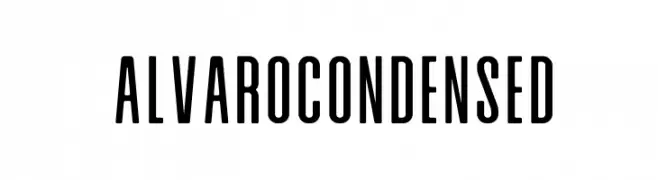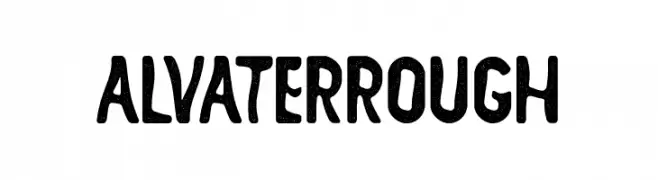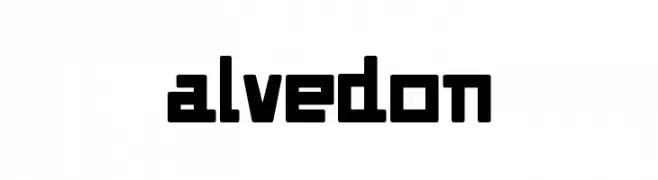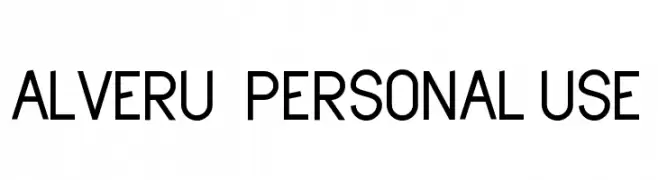
An elegant and intricate script font with flowing, interconnected letters and elaborate swashes.
A dynamic and flowing script font with a handwritten appearance.
A bold, energetic script font with flowing strokes and a modern flair.
A lively script font with elegant curves and smooth connections.
A playful and elegant script font with a handwritten style.
A bold, playful font with rounded edges and a modern, energetic style.
A bold, decorative font with playful, exaggerated curves and loops.
A bold, geometric font with a modern and structured design.
A modern oblique font with a sleek, dynamic style.
An elegant, high-contrast script font with flowing, ornate letterforms.
A bold, playful script font with a retro vibe and smooth curves.
A dynamic and flowing script font with elegant, cursive strokes.
A modern, condensed sans-serif font with tall, narrow characters and uniform stroke width.
A flowing, cursive script font with elegant, interconnected letters.
A flowing, cursive script font with elegant, connected strokes.
A bold, rough-textured font with a handcrafted, vintage feel.
A playful, handwritten font with bold, rounded strokes.
An elegant and decorative font with ornate swirls and curves.
A dynamic and elegant script font with flowing, sophisticated strokes.
A modern, geometric sans-serif font with clean lines and a slightly condensed style.
A playful, casual handwritten font with smooth, rounded edges.
A casual, handwritten font with a smooth, flowing style.
A casual, handwritten font with smooth, flowing curves and a natural, organic feel.
An elegant script font with flowing cursive style and intricate flourishes.
A sophisticated script font with elegant swashes and flowing cursive letters.
A playful, casual handwritten font with smooth curves and a friendly appearance.
A cursive, handwritten-style font with elegant, flowing strokes.
A playful, bold, and whimsical font with rounded, flowing letterforms.
A bold, rounded font with a 3D shadow effect, perfect for playful designs.
An ornate and flowing script font with intricate flourishes.
A bold, playful handwritten font with rounded, smooth strokes.
A playful and flowing script font with smooth, rounded curves.